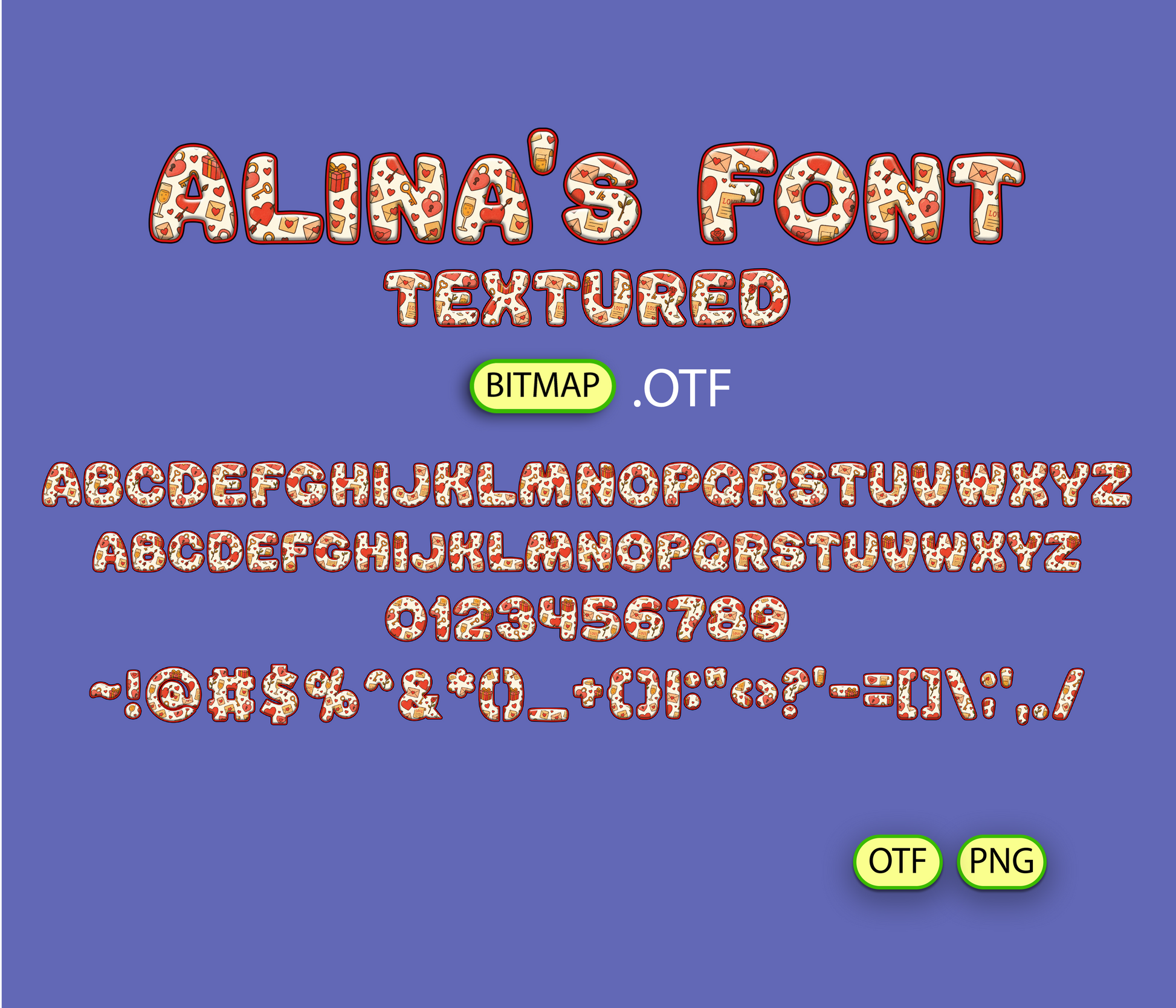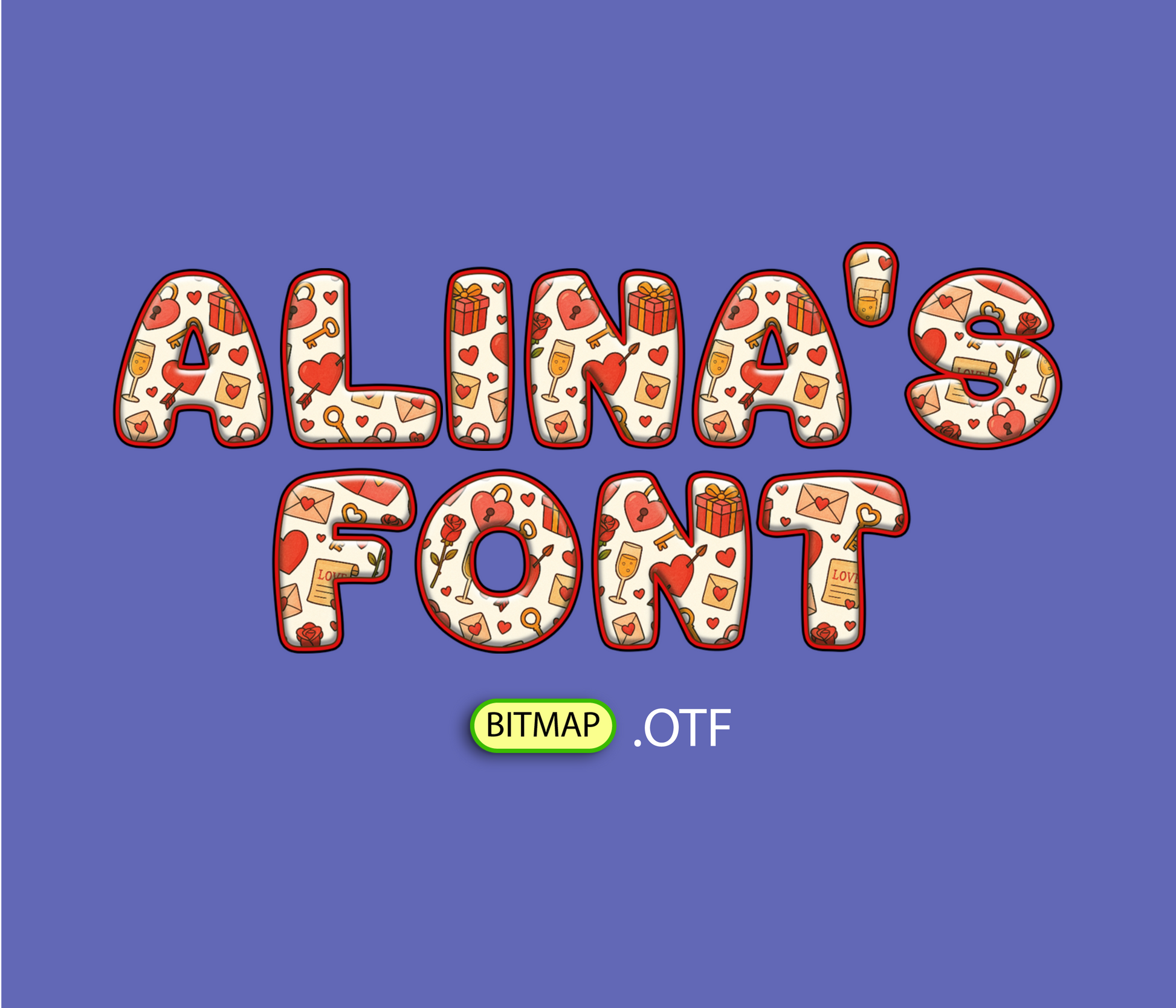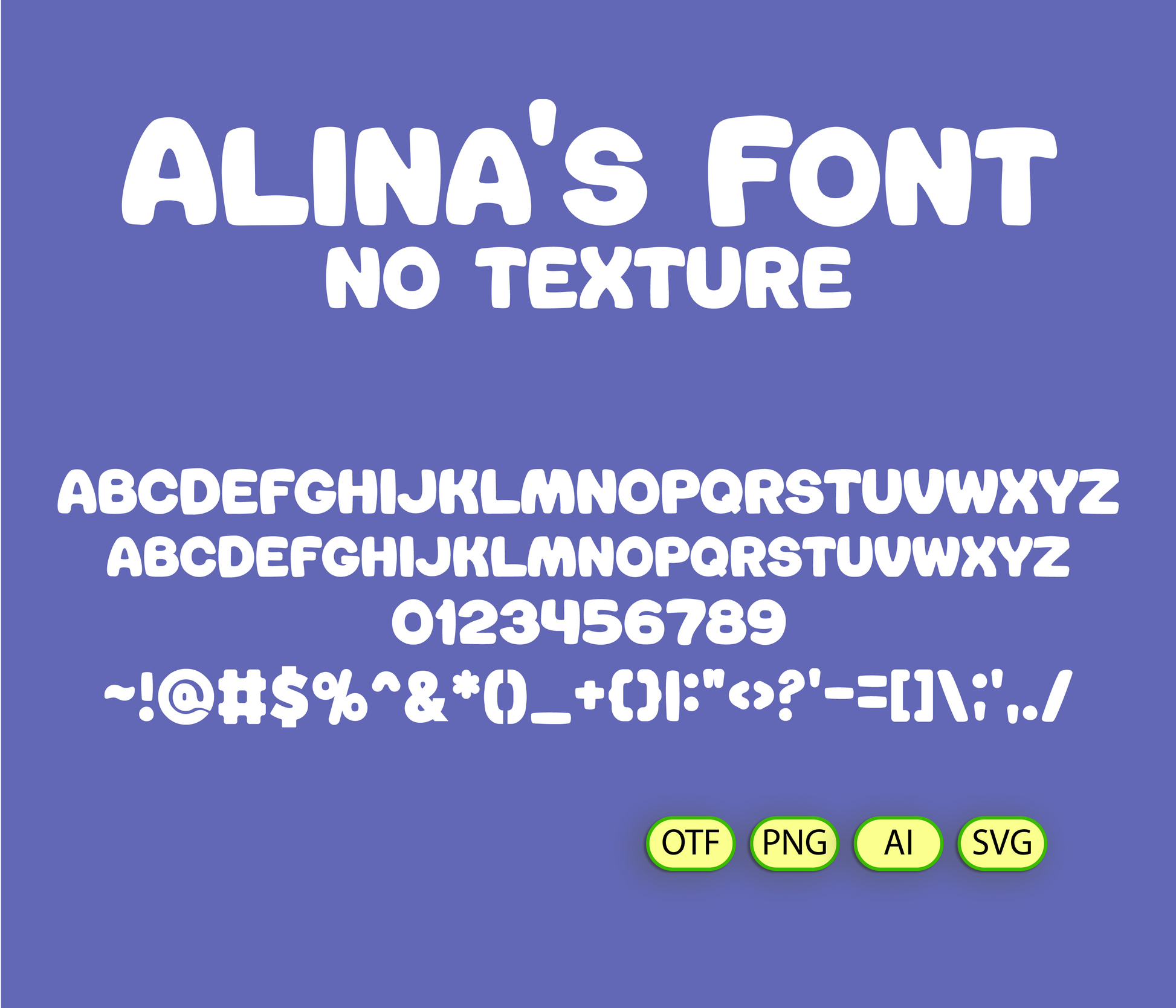
Valentine's Day Romance Typeface Textured
Step into the enchanting world of love and affection with our Valentine's Day Romance Typeface, capturing the essence of heartfelt connections and romantic gestures. Perfect for wedding planners, greeting card companies, jewelry brands, and creative professionals, this font brings the passionate, tender spirit of Cupid's season to your projects. Create charming signage, romantic products, or digital content with the warm, elegant allure of rose petals and candlelit dinners.
Our Valentine's Day Romance Typeface features flowing, heart-inspired shapes and graceful characters reflecting the intimate yet celebratory aesthetic of love-filled occasions.
Our Valentine's Day Romance Typeface includes textured and non-textured variants, ensuring compatibility with all software, including Canva. This feature allows easy incorporation into designs for users of all skill levels.